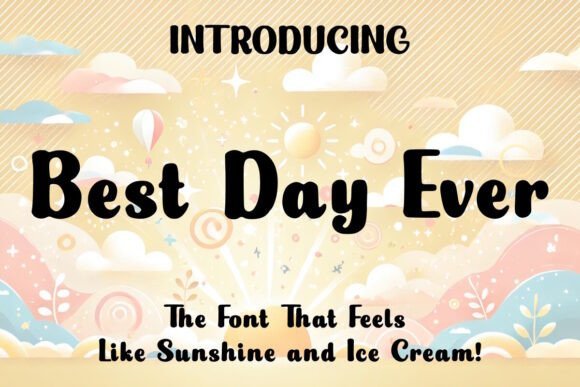
The Ultimate Font for Your Brightest Creations
Have you ever stared at a blank canvas, trying to come up with the perfect idea, only to have a burst of inspiration strike you in the form of a sunny day, a child’s laughter, or a favorite memory? That’s exactly what the Best Day Ever Font is designed to evoke – a sense of pure joy and happiness that radiates from every curve and line.
This delightful font is more than just a design element – it’s a way to spread smiles and bring a little extra sunshine to your designs. Whether you’re crafting greeting cards, fun branding, or anything that needs a boost of pure joy, the Best Day Ever Font is here to help. As a designer, you’ll find it invaluable for adding a playful touch to your work and making it truly unforgettable.
Key Features of Best Day Ever Font
- Unique Hand-Drawn Design: The Best Day Ever Font features a hand-drawn design with a playful, cursive feel, making it perfect for adding a touch of whimsy to your designs.
Best Day Ever Font Review
When I first laid eyes on the Best Day Ever Font, I was immediately drawn in by its playful and cheerful vibe. The font’s use of bold, colorful characters ✨ really does make you feel like it’s going to be a great day. The designers have clearly put thought into creating a font that’s perfect for social media, greeting cards, and other projects where a little extra whimsy is needed.
The Best Day Ever Font is also incredibly versatile, with a range of weights and styles to choose from. Whether you’re looking for something bold and eye-catching or something more subtle and understated, this font has got you covered.
- ✨ Playful and cheerful vibe
- ✨ Versatile range of weights and styles
- ✨ Perfect for social media, greeting cards, and other projects where a little extra whimsy is needed
- ⚠️ Some characters may appear a bit too ‘childish’ for certain projects
- ⚠️ Limited language support (may not be ideal for non-English projects)
Overall, I think the Best Day Ever Font is a great addition to any designer’s toolkit. While it may not be perfect for every project, it’s certainly a fun and engaging font that’s sure to bring a smile to your face.
To get the most out of the Best Day Ever Font, use it in bold and colorful text to create a fun and playful atmosphere. Experiment with different font sizes and combinations to create visually appealing designs.
The Best Day Ever Font is perfect for creating invitations, party decorations, and social media graphics. Use it to add a touch of whimsy and excitement to your designs.